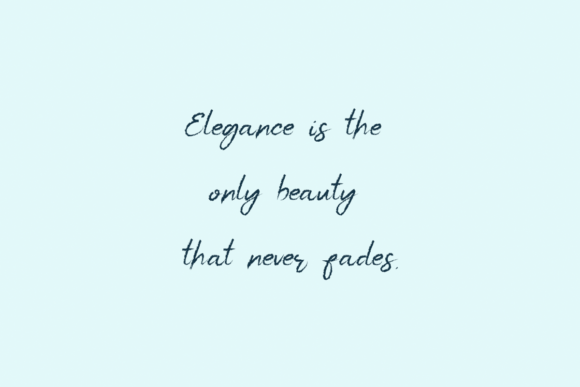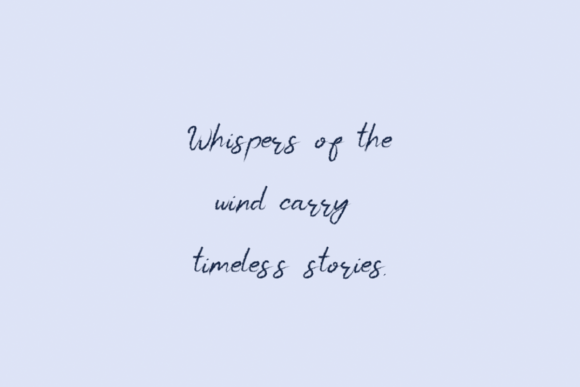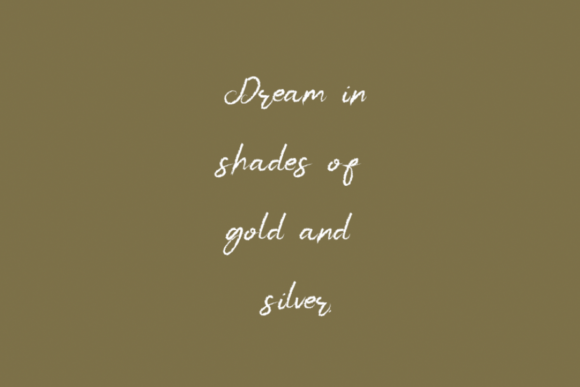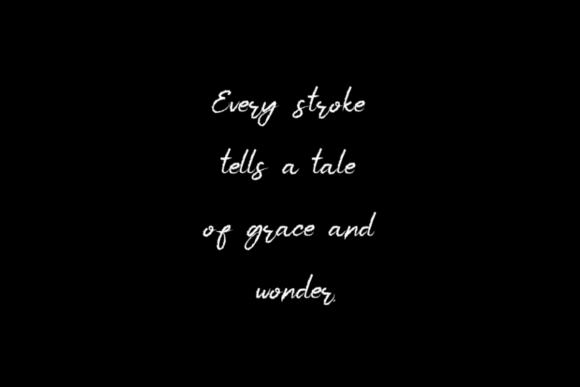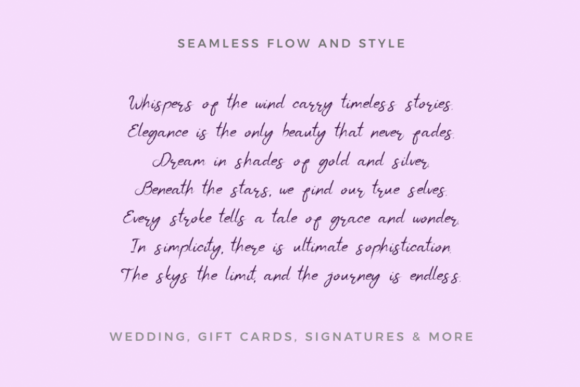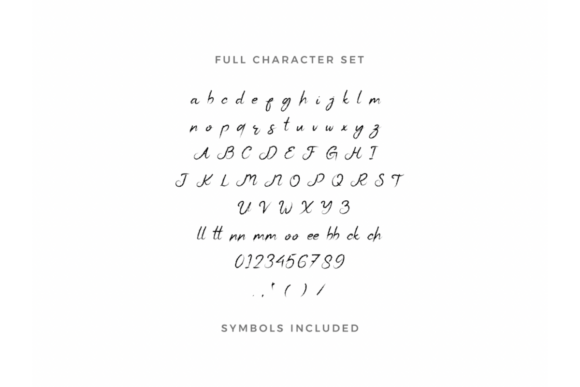
Introduction to Raelynn Font
Introducing “Raelynn”, an exceptional script font that celebrates the beauty of handwritten typography.
Individually handcrafted with love, Raelynn captures the elegance of hand-lettering A truly unique font, born from creative precision, Raelynn is the perfect mix of captivating charm and timeless opulence.
Key Features of Raelynn Font